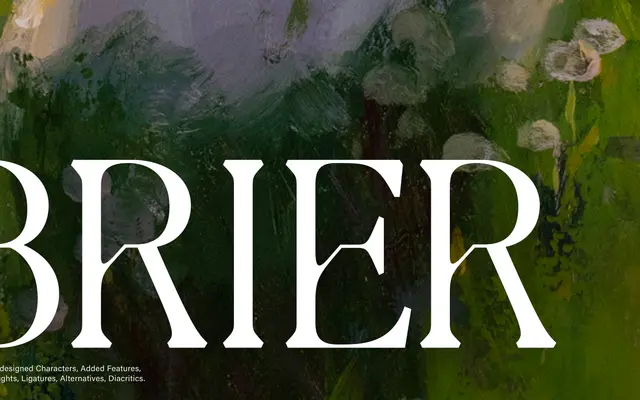
Brier
Type Department · Fatima Abbas · 2021
A botanically-inspired display serif by Fatima Abbas, distinguished by broken crossbar strokes and humanist proportions across two weights.
Designed by Fatima Abbas and first released in March 2021, Brier draws on botanical references to inform its broken crossbar strokes and graceful letterforms. The family offers Regular and Bold weights, each with over 380 glyphs including stylistic alternates, diacritics and ligatures. It suits editorial layouts, branding and decorative applications where a serif with an organic sensibility is needed at display sizes.
A display serif with humanist letterforms and decorative broken strokes in the crossbars, drawing on botanical motifs. The design prioritises elegance at large sizes rather than text-setting utility.